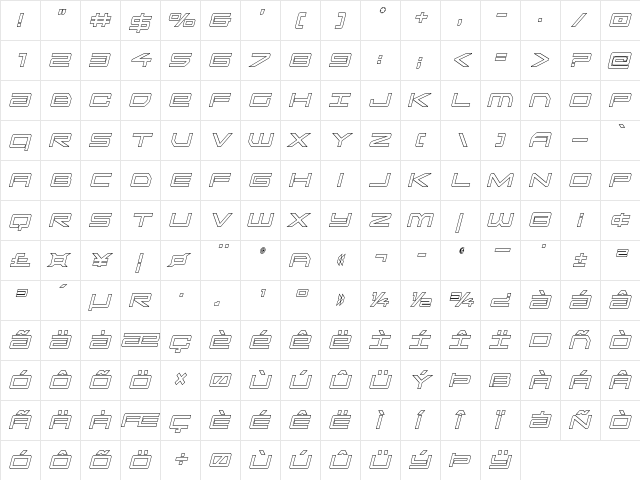
Design Context for Sky Ridge Condensed Out Italic Typeface
Sky Ridge Condensed Out Italic takes a measured approach to typography — its balanced proportions and neutral character make it a reliable workhorse for both digital and print work. The dynamic lean of this cut emphasises speed and emphasis in any layout. The condensed width makes it efficient for tight spaces without sacrificing legibility.
Pro Tip: Try Sky Ridge Condensed Out Italic for annotation and caption copy alongside an upright companion — the contrast in angle creates a dynamic but ordered typographic system.